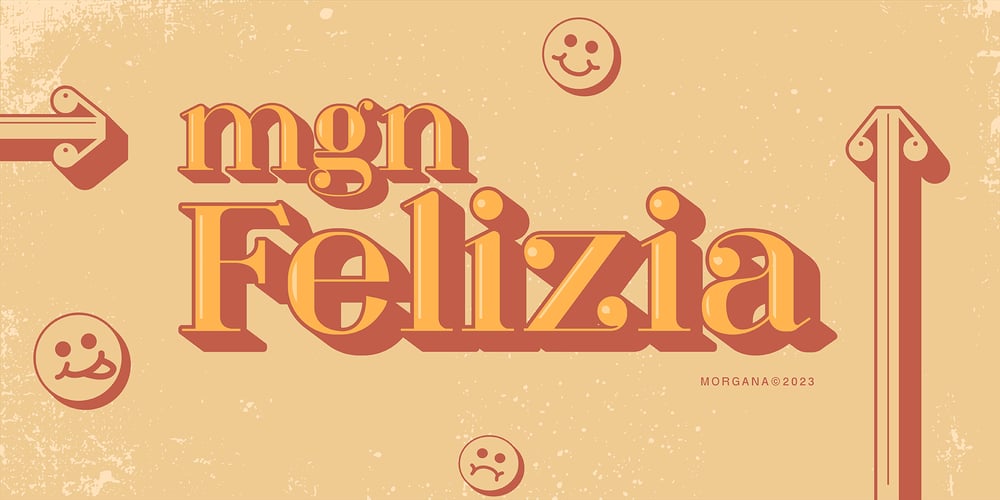
MGN Felizia Font Family was designed by Muhamad Masyhuri, Fattah Setiawan and published by Morgana Studio. MGN Felizia contains 1 styles and family package options. MGN Felizia is a font product from Morgana Studio set to be released in 2023. This font features lowercase characters with a feminine flair and uppercase letters designed in a vintage style. It’s an adaptable font suitable for a variety of design projects such as branding, logos, and headlines. MGN Felizia’s unique combination of modern and retro elements guarantees to make a visual impact in any design project.